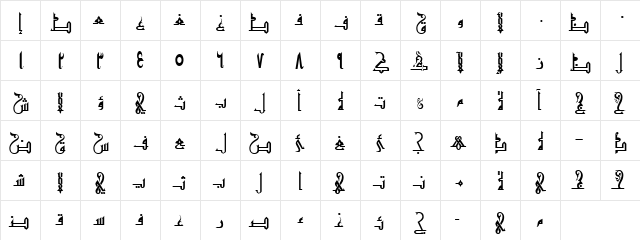
ALW Cool Hijaz. Normal
Design Context for ALW Cool Hijaz. Typeface
ALW Cool Hijaz. takes a measured approach to typography — its balanced proportions and neutral character make it a reliable workhorse for both digital and print work.